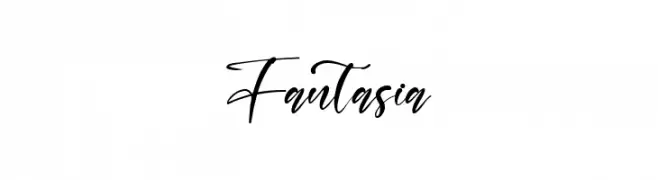
A decorative font with a medieval, fantasy-inspired style.
A bold, decorative font with a vintage, three-dimensional style.
An artistic and decorative font with intricate flourishes and swirls.
A cursive script font with elegant, flowing strokes and a handwritten appearance.
A decorative font with a nautical theme, featuring bold strokes and intricate details.
A bold, runic-style font with geometric, angular characters and moon phase symbols.
A bold, decorative Blackletter font with intricate details and gothic flair.
A dynamic, expressive handwritten font with fluid strokes and varying thickness.
An ornate, Gothic-inspired typeface with intricate decorative elements.
An elegant, decorative script font with intricate curves and flourishes.